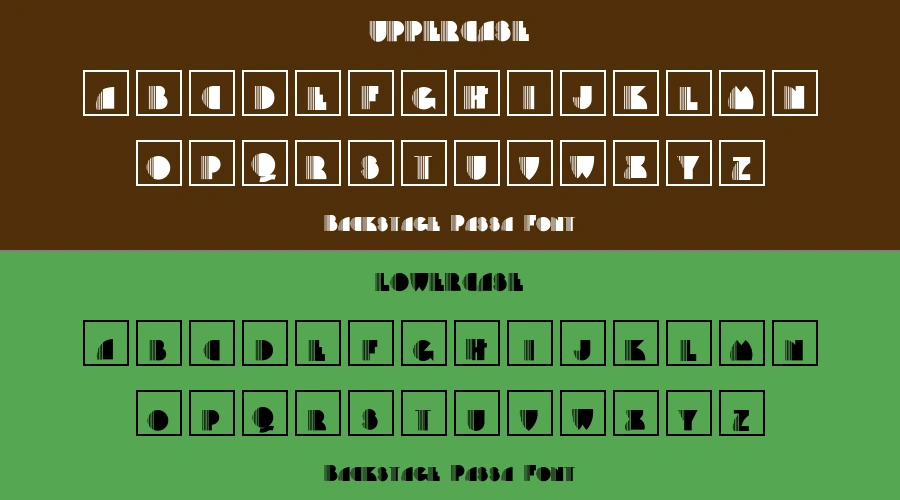
About Backstage Passa Font
Designed with precision, Backstage Passa Font merges creative flair with adaptability in every character. This versatility makes it particularly effective for packaging hero, where functionality and generational appeal directly impact communication quality. Each letterform demonstrates meticulous craftsmanship.
Technical excellence shines through elements like distinctive terminals and word-end alternates, enhancing typographic versatility. In point-of-sale displays settings, Backstage Passa Font proves its worth through superior microfilm readability. The thoughtful execution of shoulder shape and institutional trust ensures professional results.